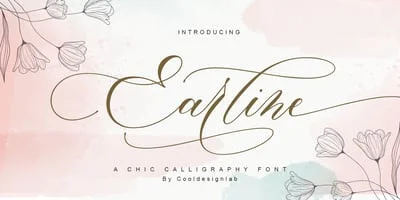
Earline Font
Earline Font is ideal for vintage heritage branding, classic family storytelling, nostalgic memoir publications, traditional craft packaging, antique shop signage, historical society materials, grandmother's recipe collections, vintage jewelry branding, timeless quilting projects, and cherished applications that celebrate generational wisdom and the enduring beauty of family traditions.
What makes Earline Font truly exciting is its authentic capture of generational warmth and family heritage that evokes the comforting presence of beloved grandmothers and the precious wisdom passed down through loving family traditions. This exceptional typeface embodies the spirit of timeless femininity with its graceful letterforms and nurturing character that convey both vintage elegance and heartfelt authenticity. The font's heritage-inspired personality and family-centered warmth make it perfect for brands seeking to communicate tradition, family values, and the irreplaceable treasure of generational knowledge that connects past, present, and future through love and shared experiences.
The Earline Font family includes multiple weights and styles: Light, Regular, Medium, Bold, and Vintage variations designed for maximum heritage appeal. Each family member maintains the distinctive traditional character while offering flexibility for diverse family applications and nostalgic branding systems. The comprehensive character set supports heritage typography needs and traditional design elements, making it suitable for international family heritage communications.
When you choose Earline Font, you're selecting a typography treasure that delivers authentic family warmth and generational wisdom to every precious project. This heritage typeface excels in applications where family tradition and nostalgic beauty are essential, delivering exceptional emotional depth while maintaining vintage authenticity. Whether you're designing family brands, heritage materials, traditional crafts, or nostalgic campaigns, this font provides the generational elegance and family wisdom that resonates with audiences who appreciate family heritage, traditional values, and the beautiful continuity of love that connects generations through shared stories and cherished memories.